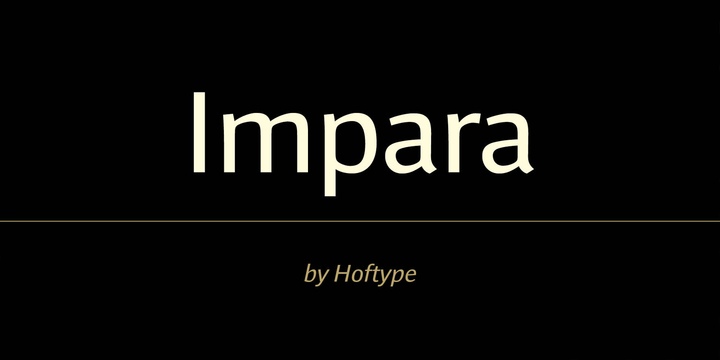
Impara Font
Impara Font is perfect for educational institution branding, language learning platforms, academic conference materials, training program marketing, skill development courses, professional certification programs, educational technology interfaces, and knowledge-sharing publications where learning and intellectual growth are emphasized.
What makes Impara Font so exciting is its intelligent ability to inspire curiosity and academic excellence through scholarly letterforms that embody the pursuit of knowledge and intellectual development while maintaining exceptional clarity for educational content. The studious character design reflects the dedication and systematic approach that defines effective learning experiences and educational achievement.
The Impara Font family includes thin, light, regular, medium, bold, and black weights, with academic variants and education-inspired ornamental elements that provide comprehensive tools for creating credible educational branding and learning-focused design systems.
The font's structured character architecture and balanced proportions create immediate associations with quality education and professional skill development. Each letterform has been designed to convey the competence and knowledge that students and professionals expect from reputable educational institutions and training providers.
Impara Font excels in creating inspiring educational communications that motivate learning and academic achievement. The typeface's scholarly character makes it ideal for schools, universities, and training organizations targeting students and professionals committed to intellectual growth and skill development.
From online learning platforms to academic research publications, this font brings educational credibility that resonates with learners seeking quality instruction and meaningful skill development. The versatile design maintains its academic character across both traditional educational materials and modern digital learning platforms.